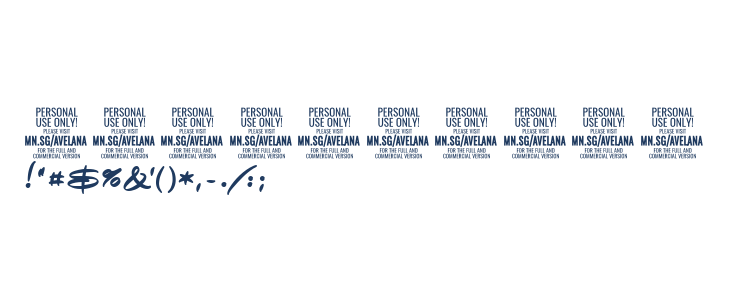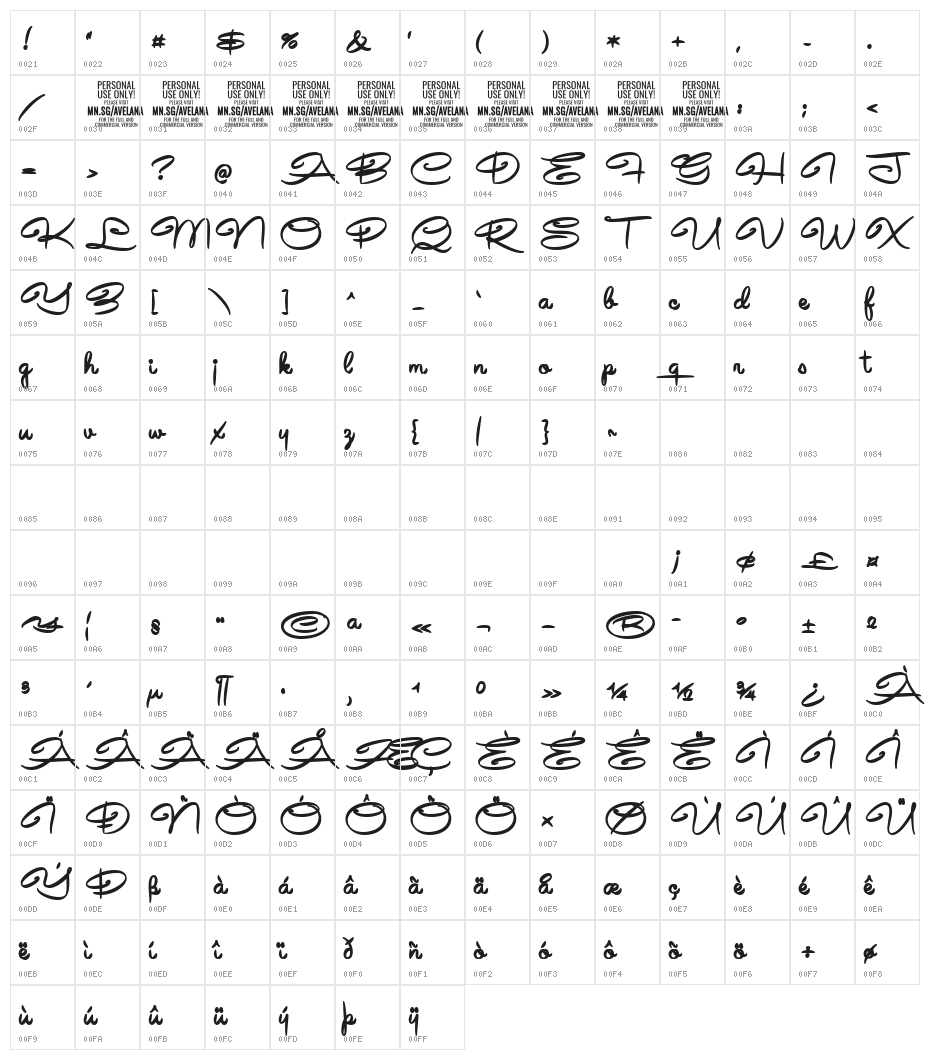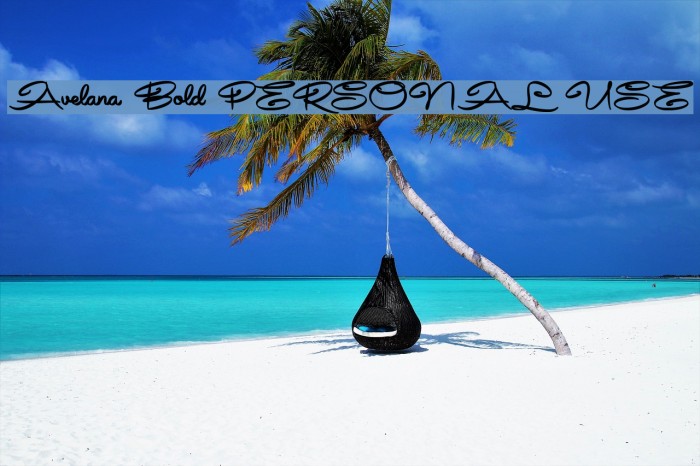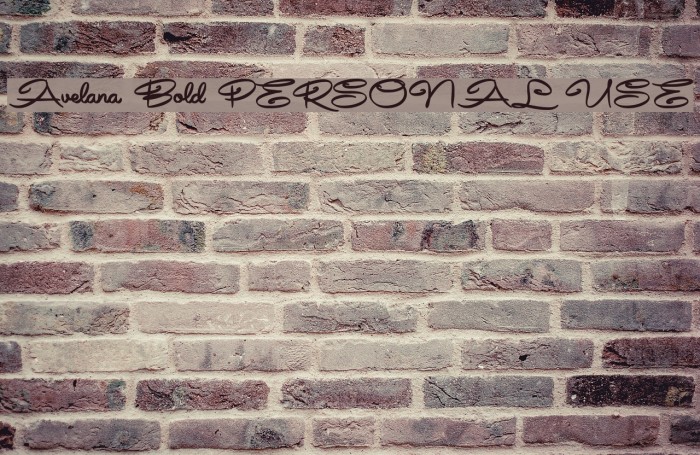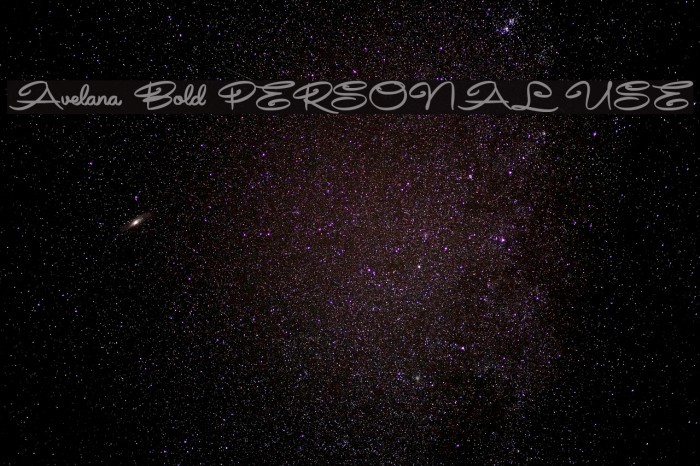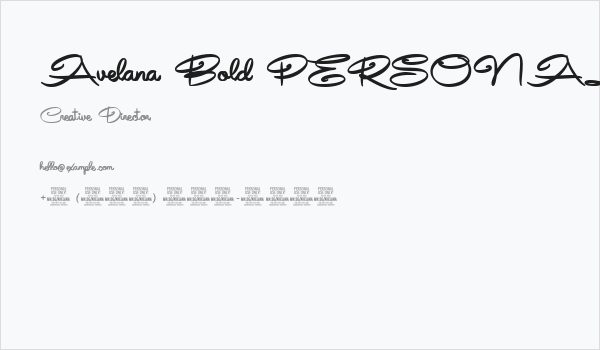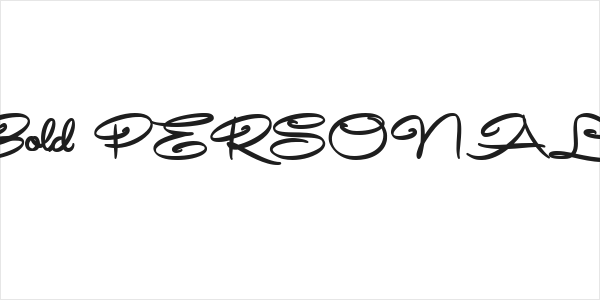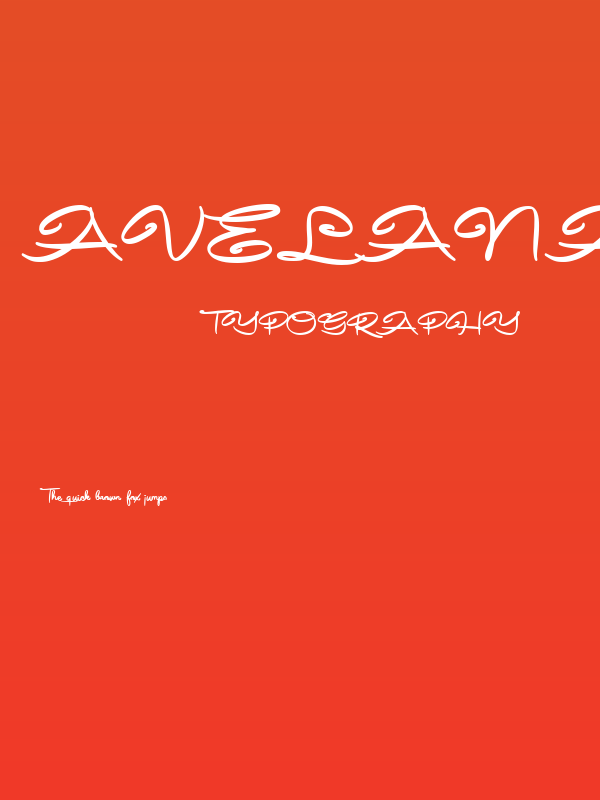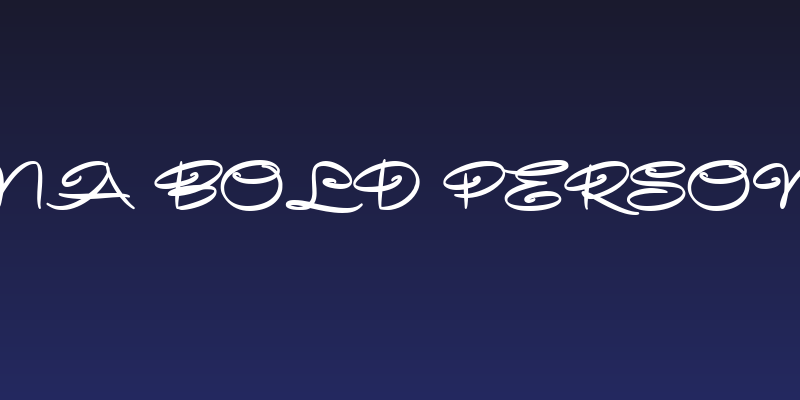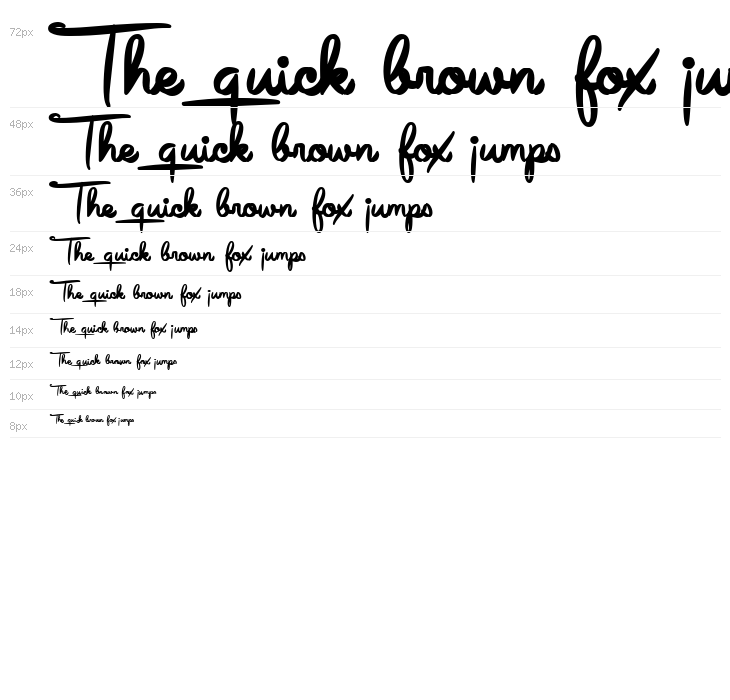
Avelana Bold PERSONAL USE Font
Avelana Bold PERSONAL USE Description
This font features a dynamic and expressive script style with a bold presence. The uppercase letters are elegantly crafted with sweeping curves and a sense of fluidity, while the lowercase letters maintain a consistent flow with a slightly more compact form. The font exudes a sense of creativity and personal touch, making it ideal for projects that require a handwritten or artistic feel. The characters are well-spaced, ensuring readability while maintaining the font's unique style. Special characters are included, adding versatility to its use.
| Proposed Projects | Ideal for creative projects such as invitations, greeting cards, branding, and artistic posters. |